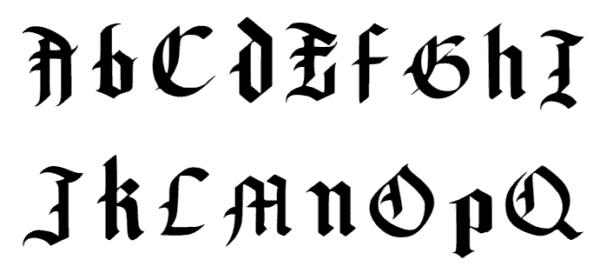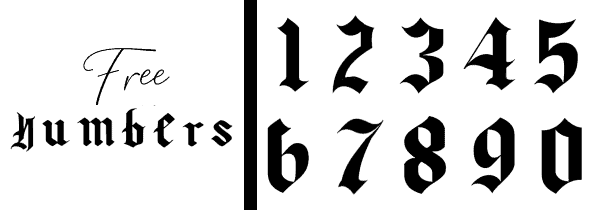
Old English Font
Old English font is also known as Gothic font, blackletter calligraphy, or Old English letters. The old English font includes a variety of calligraphic styles. The letters are uniform and upright and created with vertical strokes and built-up serifs. The Old English font is often difficult to read and therefore should not be used when legibility is an important factor. It also shouldn’t be used for long texts as they will not be easy to read.
Old English Font Alphabet
These are the letters used in the Old English font text generator. To give you a better idea of both uppercase and lowercase letters, they have both been used below. You would not write this way. It is just to show you both options.
The letters of the Old English Gothic font (sometimes called English blackletter) are very compressed so more words can fit on a page than other styles. There is often a dynamic contrast of heavy letters and fine hairlines.
Today, this font is used primarily in headings on certificates and diplomas. Some newspapers also use variations of this font in their headlines. The old English font is a version of the Gothic font. If you prefer an old English cursive font then see our calligraphy generator.
Majuscules
These are uppercase or capital letters. The Majuscules are quite difficult to read and should be used for initials, the first letter, or for emphasis only. Don’t write entire words in caps since they will be very difficult to read.
Minuscules
These are lowercase letters or small letters. They are much easier to write than uppercase letters. These letters are more legible and can be used to write entire words, sentences, or paragraphs.
The old English font numbers are similar to the letters.
Old English Font Tattoo
Old English font letters and numbers letters are commonly used in tattoo designs. See tattoo fonts for more options.
The Origin of the Old English Font
The Old English letters were used in Europe from around the 11th century. Most of the letters were based on a style called Carolingian minuscule. Carolingian minuscule was originally developed to write books and publications but since it took too long to write it was too time-consuming. Therefore, the old English letters or black letters were developed to replace the more elaborate Carolingian minuscule.
A good angle for writing old English letters is 45 degrees. You don’t have to use a 45-degree angle. In fact, you can try different angles and see how they affect your letters. However, once you have chosen an angle you must be consistent and use that angle for all letters.